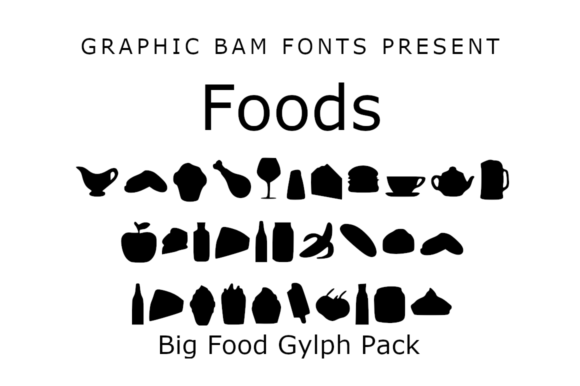
Introducing Foods Font: A Deliciously Unique Dingbats Font
Are you a designer, crafter, or DIY enthusiast looking for a fun and creative way to add some flavor to your projects? Look no further than Foods Font, a cool and unique looking dingbats font that’s packed with a mouth-watering collection of food glyphs. In this article, we’ll dive into the world of Foods Font and explore its features, benefits, and uses.
What is Foods Font?
Foods Font is a dingbats font that features a fun and eclectic collection of food-themed glyphs. From fruits and vegetables to desserts and drinks, this font has everything you need to add a touch of culinary charm to your designs. With its unique and playful style, Foods Font is perfect for a wide range of projects, from crafting and scrapbooking to graphic design and digital art.
Key Features of Foods Font
- Unique and playful design: Foods Font features a one-of-a-kind design that’s sure to stand out in any project.
- Large collection of glyphs: With a wide range of food-themed glyphs, you’ll have everything you need to create delicious designs.
Uses for Foods Font
Foods Font is a versatile font that can be used in a wide range of projects, including:
- Crafting and scrapbooking: Add a touch of foodie fun to your scrapbook pages, cards, and other craft projects.
- Graphic design: Use Foods Font to create eye-catching graphics, logos, and branding materials for food-related businesses.
- Digital art: Incorporate Foods Font into your digital art projects, such as illustrations, animations, and GIFs.
- Web design: Use Foods Font to add a playful touch to your website or blog, especially if you have a food-related niche.
Benefits of Using Foods Font
So why choose Foods Font over other fonts? Here are just a few benefits:
- Save time: With Foods Font, you can quickly and easily add food-themed glyphs to your designs, saving you time and effort.
- Stand out: Foods Font’s unique design ensures that your projects will stand out from the crowd and grab attention.
- Increase engagement: The playful and fun nature of Foods Font can help increase engagement and interaction with your audience.
Foods Font is a unique and fun dingbats font that’s perfect for designers, crafters, and DIY enthusiasts. With its large collection of food-themed glyphs and easy-to-use design, Foods Font is sure to add a touch of culinary charm to any project. Whether you’re creating crafts, graphics, digital art, or web designs, Foods Font is a great choice. So why wait? Download Foods Font today and start cooking up some creative projects!